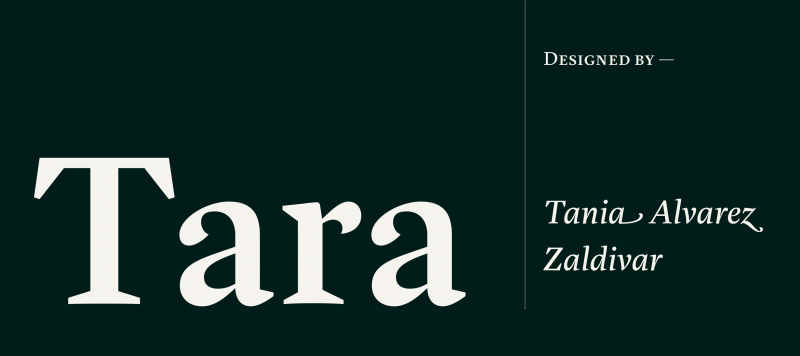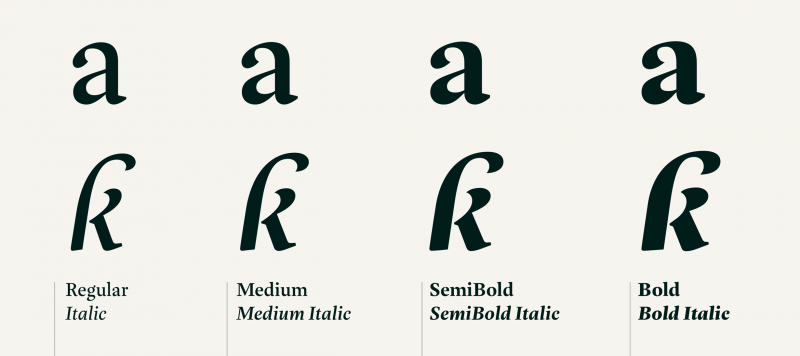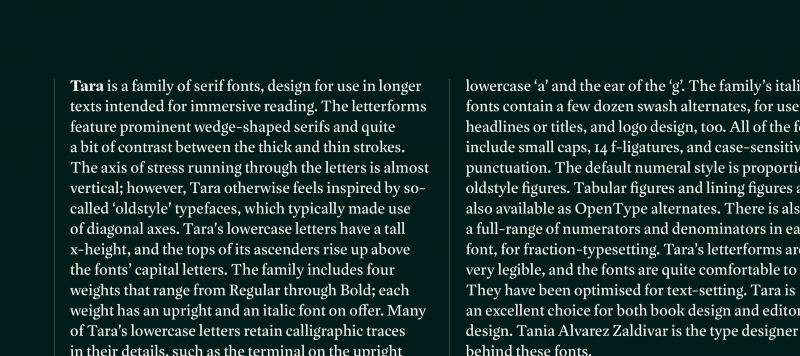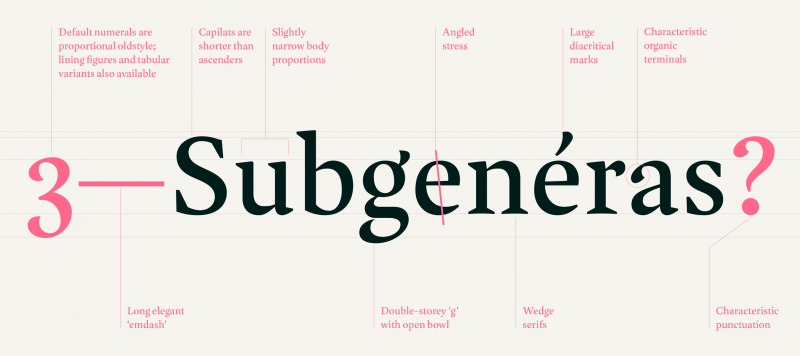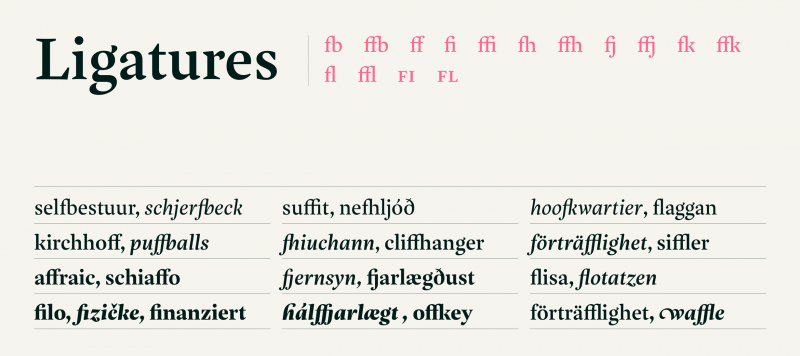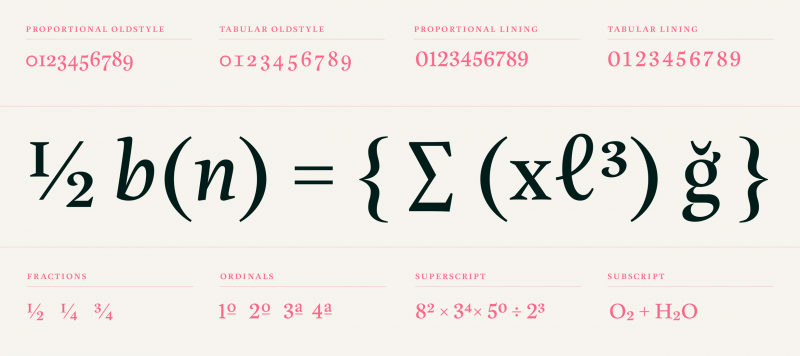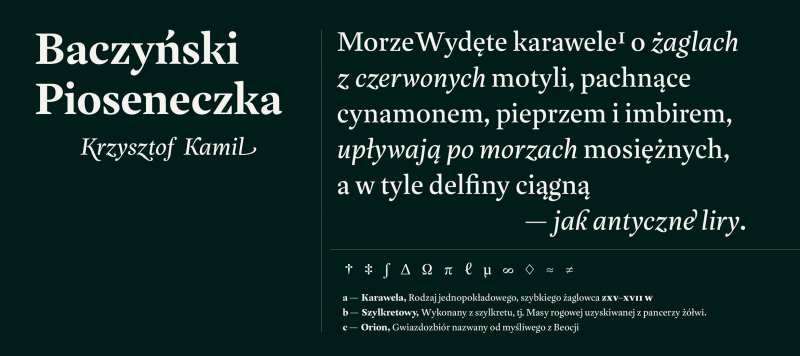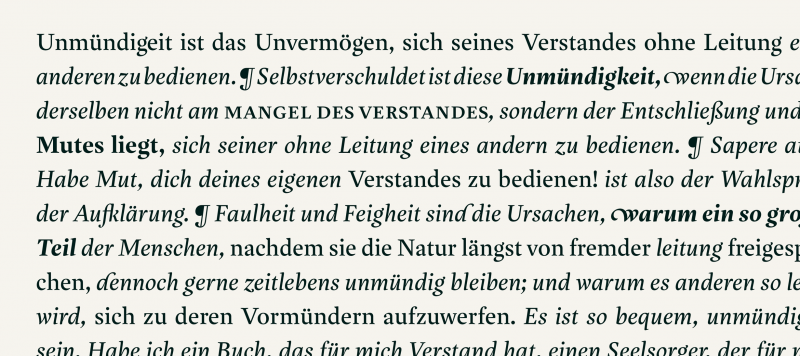
Tara is a family of serif fonts designed for immersive reading. Its design considers a tall x-height, balanced with high contrast letter-forms and wedge-shaped serifs that propose an elegant character functional at reading sizes. The axis of stress running through the letters is almost vertical; however, Tara is inspired by oldstyle typefaces, characterized by their use of diagonal axes. The family includes four weights that range from Regular through Bold with matching italics. Many of Tara’s lowercase letters retain calligraphic traces in their details, such as the terminal on the upright lowercase ‘a’ and the ear of the ‘g’. The italics contain a few dozen swash alternates, for use in headlines, titles as well as logo designs. All of the fonts include small caps, 14 f-ligatures, and case-sensitive punctuation. The default numeral style is set at proportional oldstyle figures with tabular and lining figures available as OpenType alternates. A full-range of numerators and denominators for fraction-typesetting has been included for its compatibility with a widespread range of contents. With letter-forms quite comfortable to read, Tara’s language support covers an extended Latin character-set and is an excellent choice for editorial projects across print media. Tara was designed by Tania Alvarez Zaldivar, a type and graphic designer from Mexico, and a graduate of the Type & Media program at the Royal Academy of Arts (KABK) in The Hague.
Family Name | Tara |
Classification | Serif |